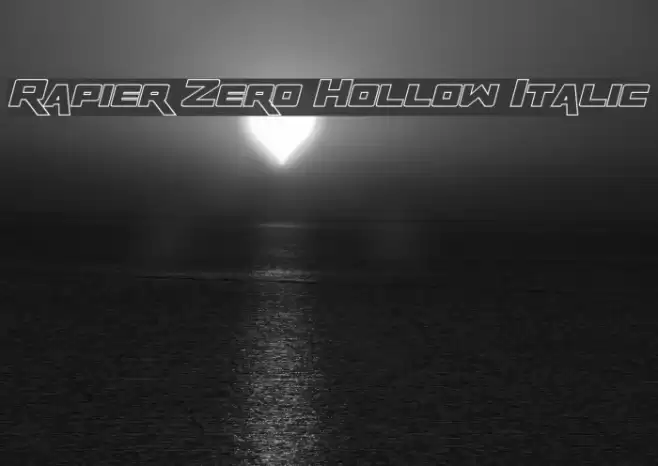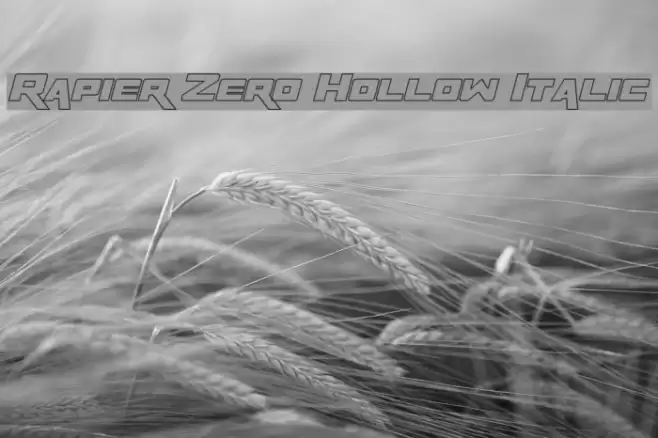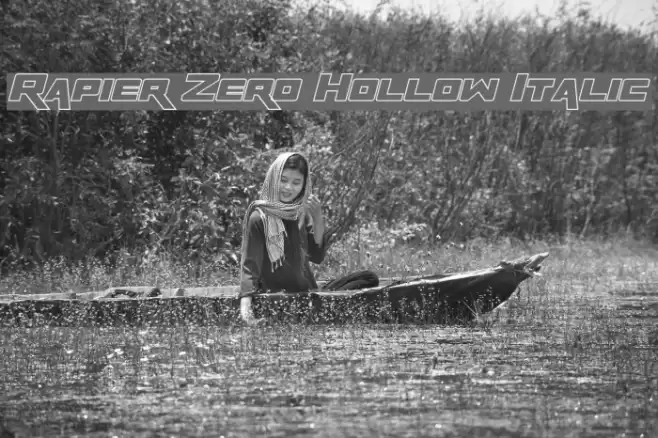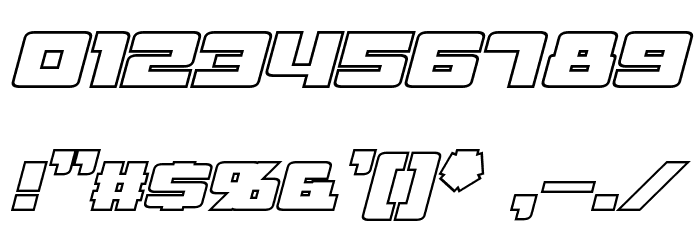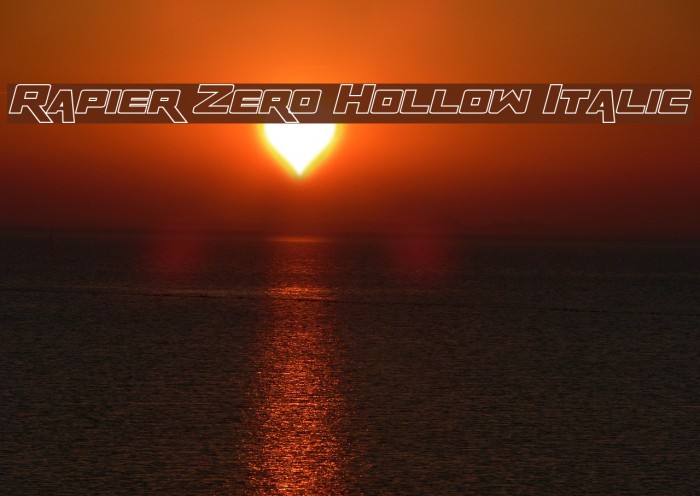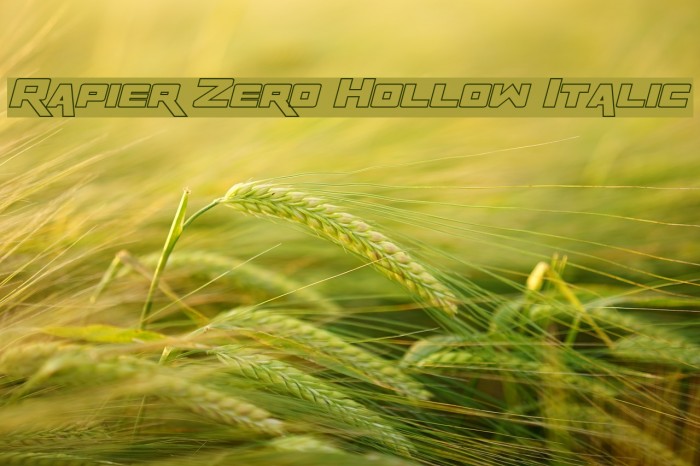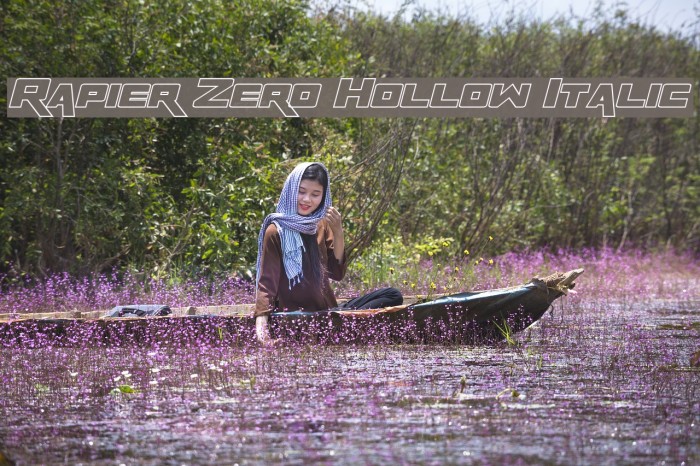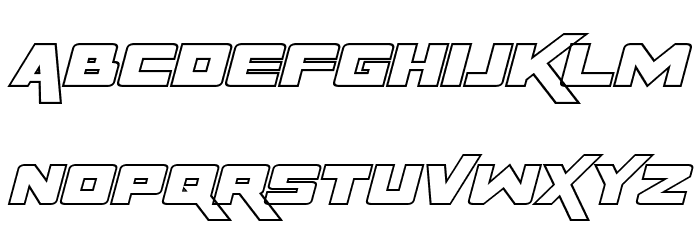
Rapier Zero Hollow Italic Font
Rapier Zero Hollow Italic Description
This font features a futuristic and angular design with hollow characters that give it a unique, cutting-edge appearance. The uppercase and lowercase letters maintain a consistent geometric style, with sharp edges and a slight italic slant that adds dynamism. The numerals and special characters follow the same aesthetic, ensuring a cohesive look across all glyphs. The hollow nature of the characters provides a sense of lightness and modernity, making it suitable for projects that require a bold yet airy feel. The font's distinct style is ideal for creative and tech-oriented designs.
A futuristic, angular, hollow font with a slight italic slant from Uncategorized fonts.
- Proposed Projects: Ideal for tech branding, sci-fi posters, video game titles, and modern advertising.